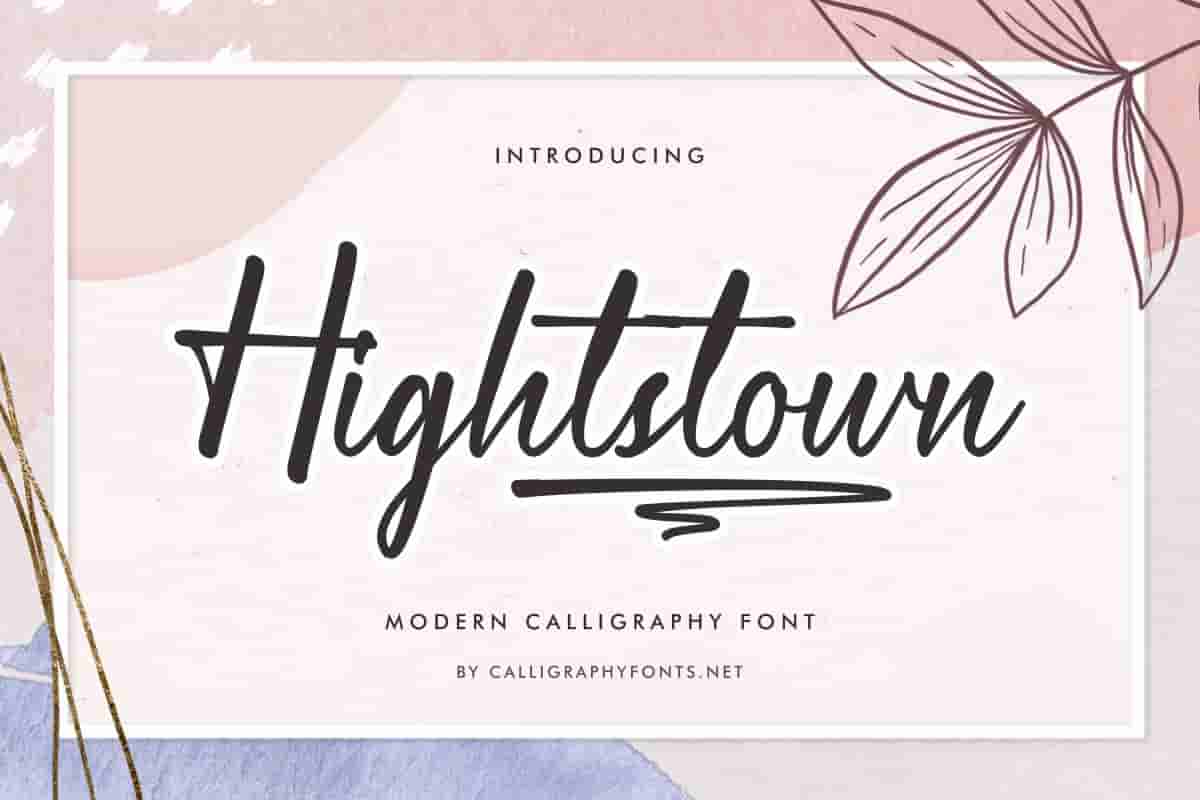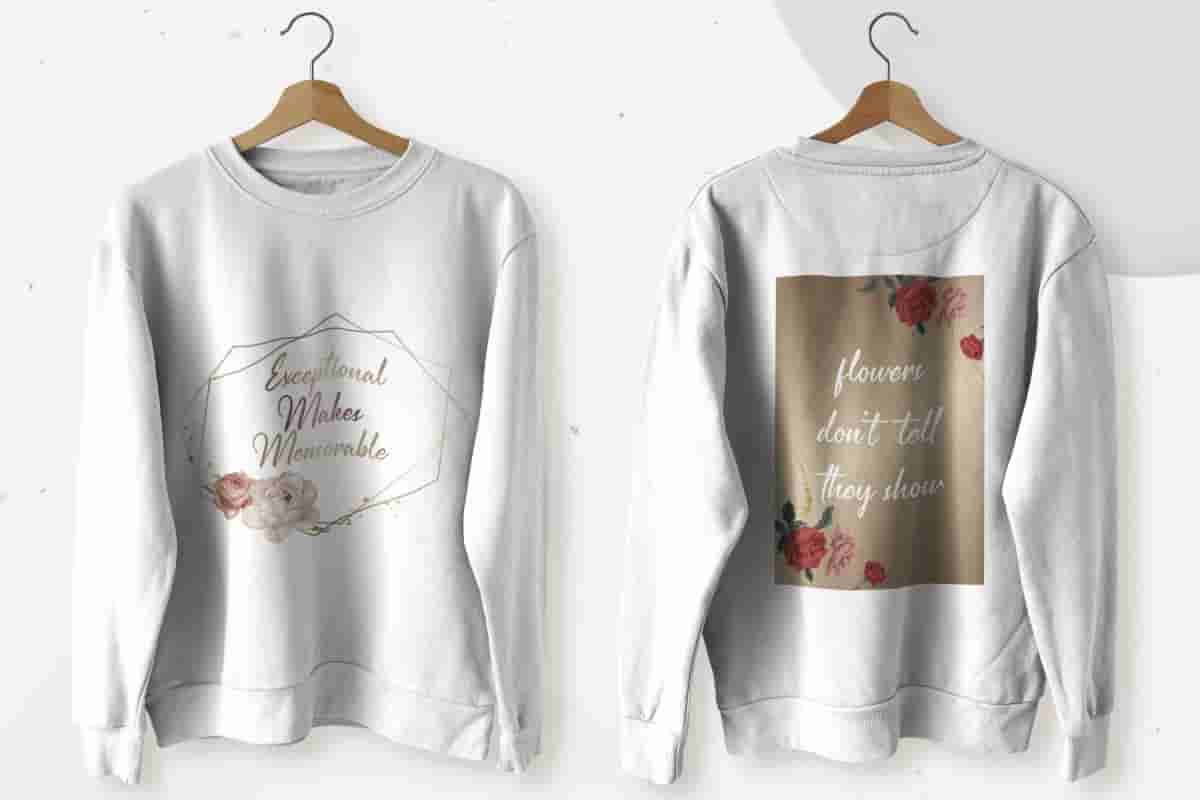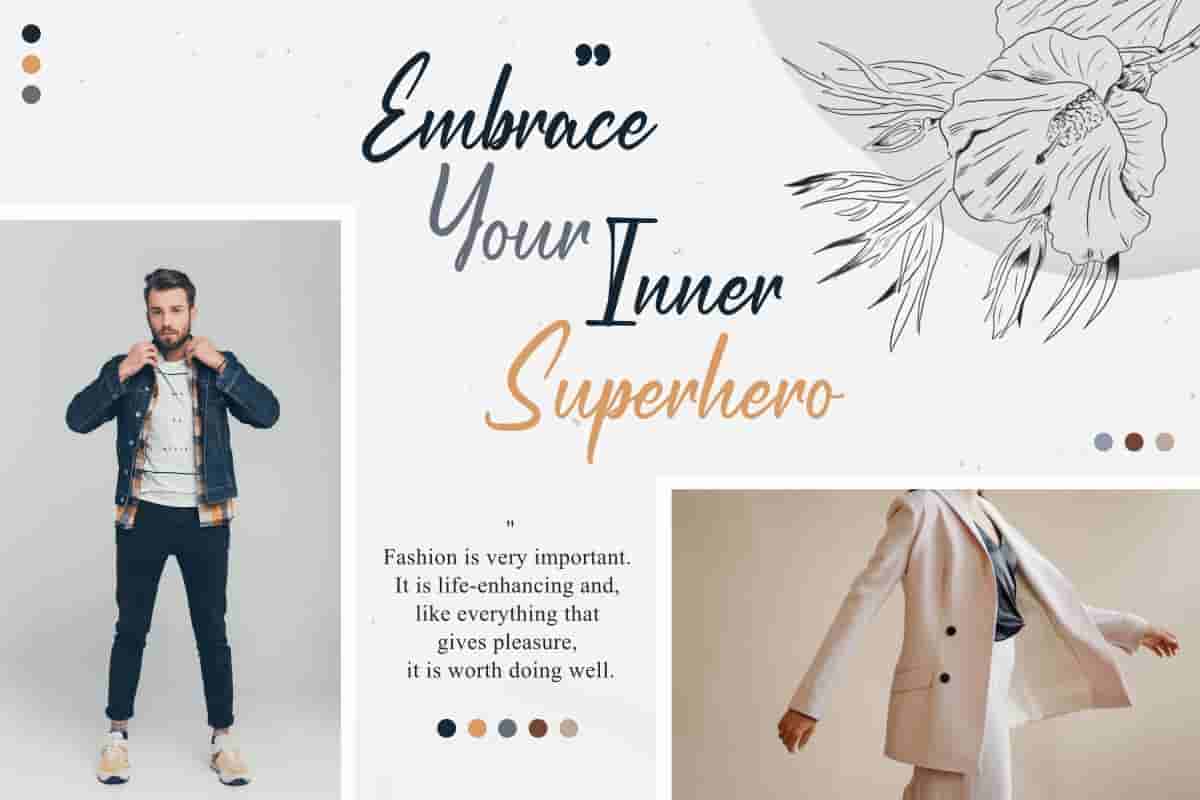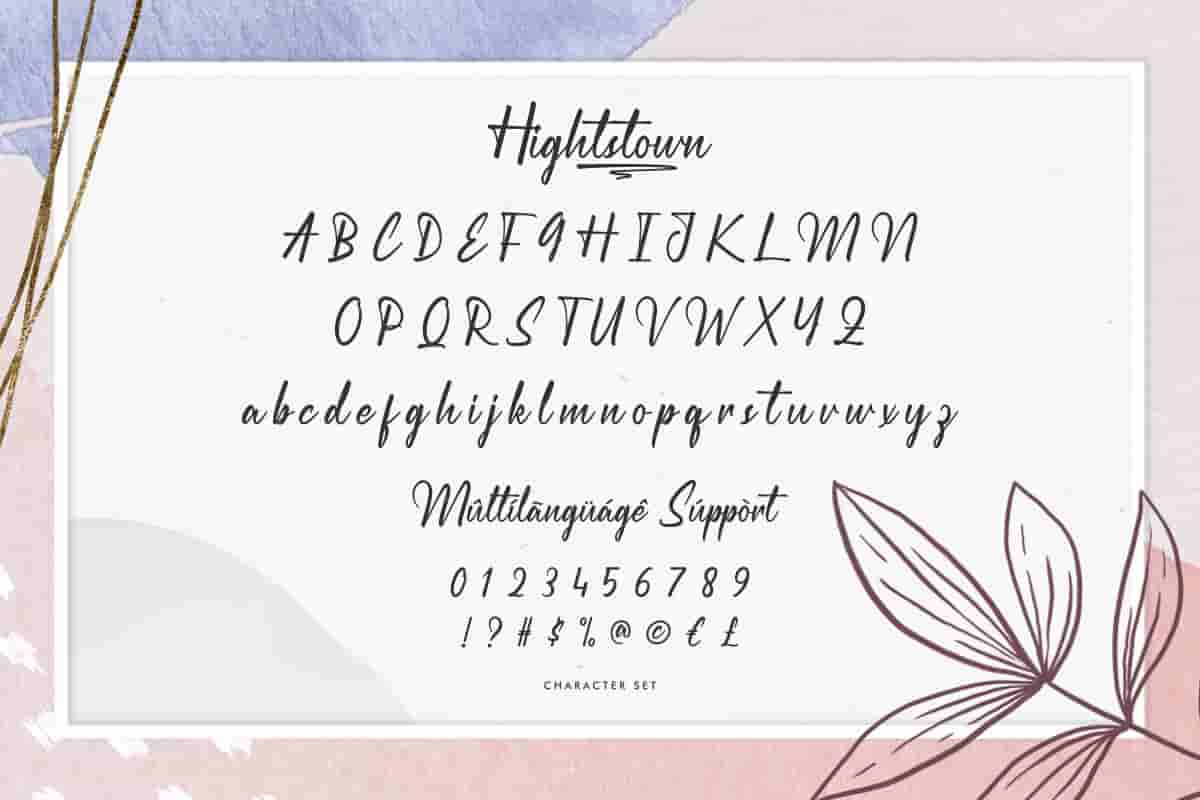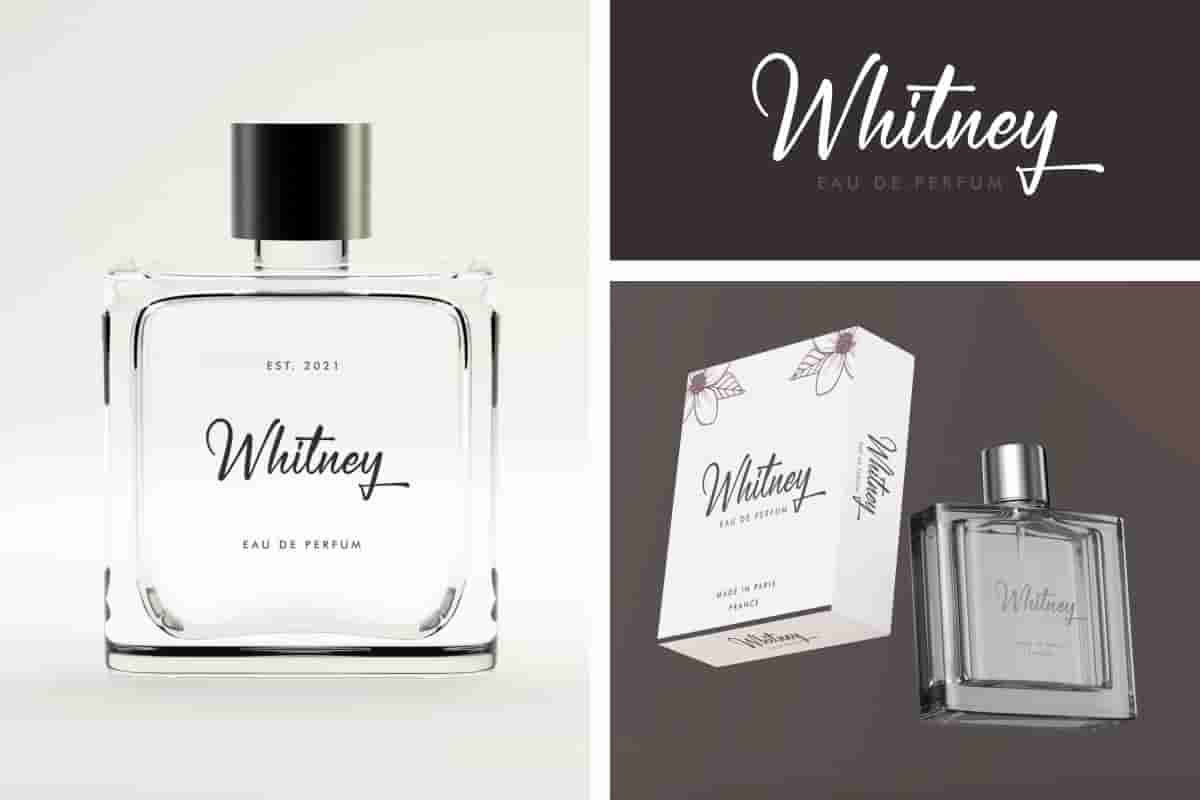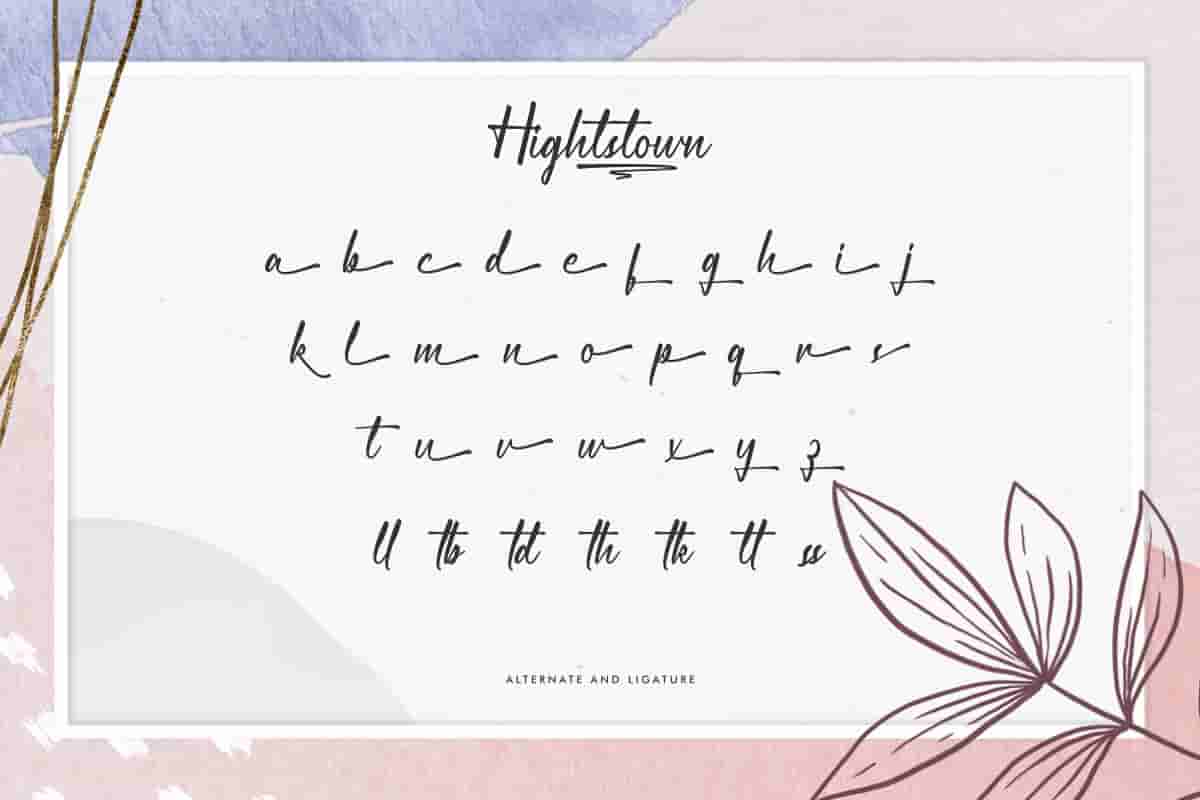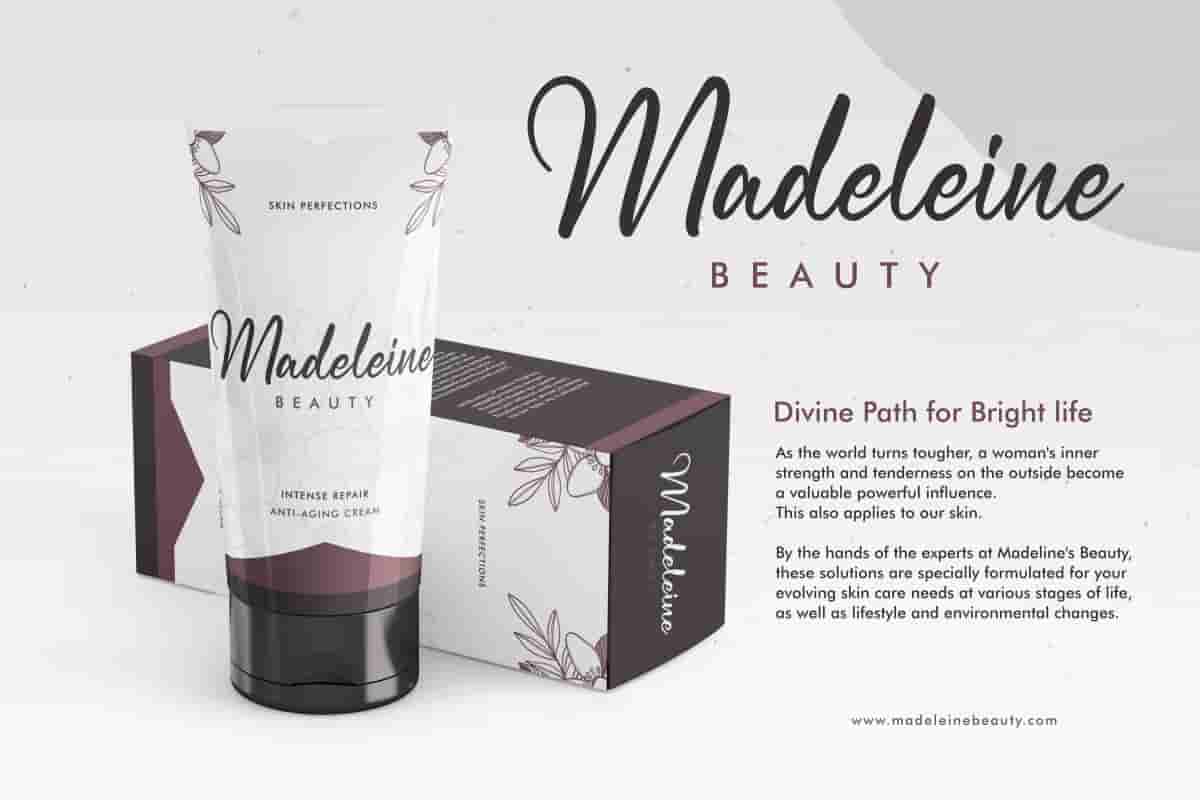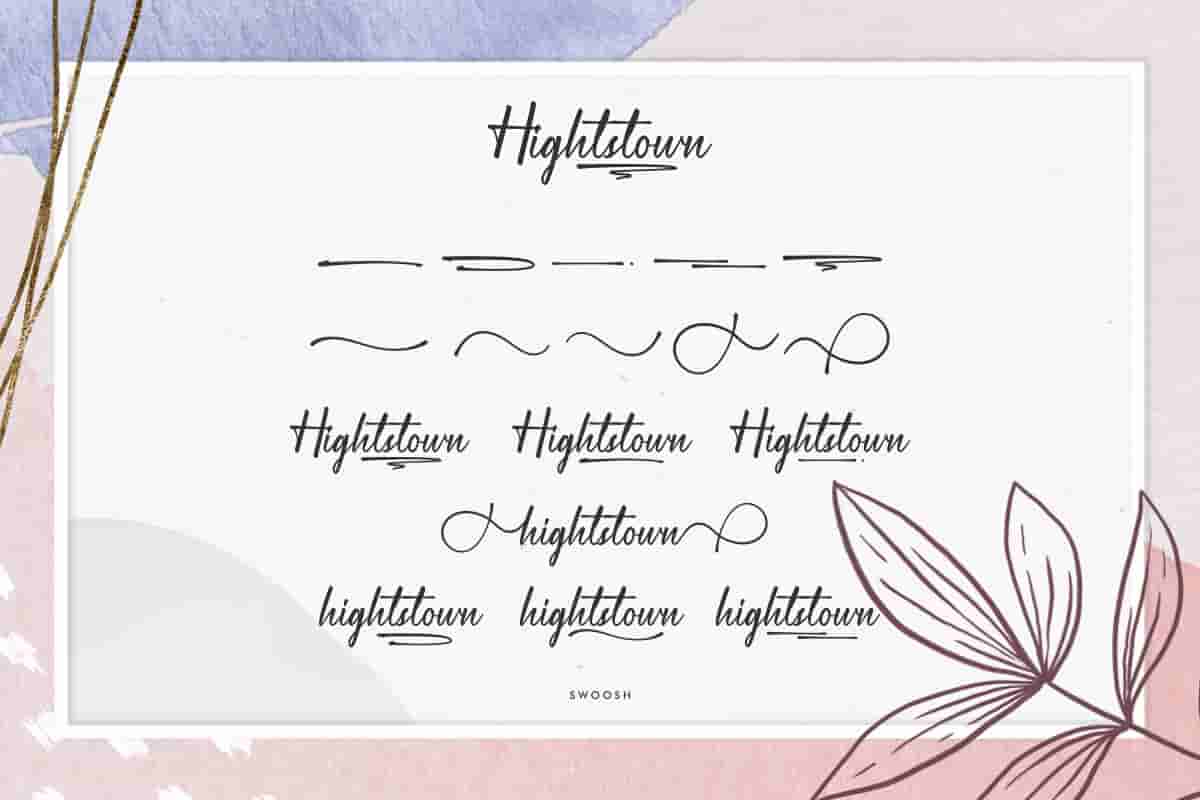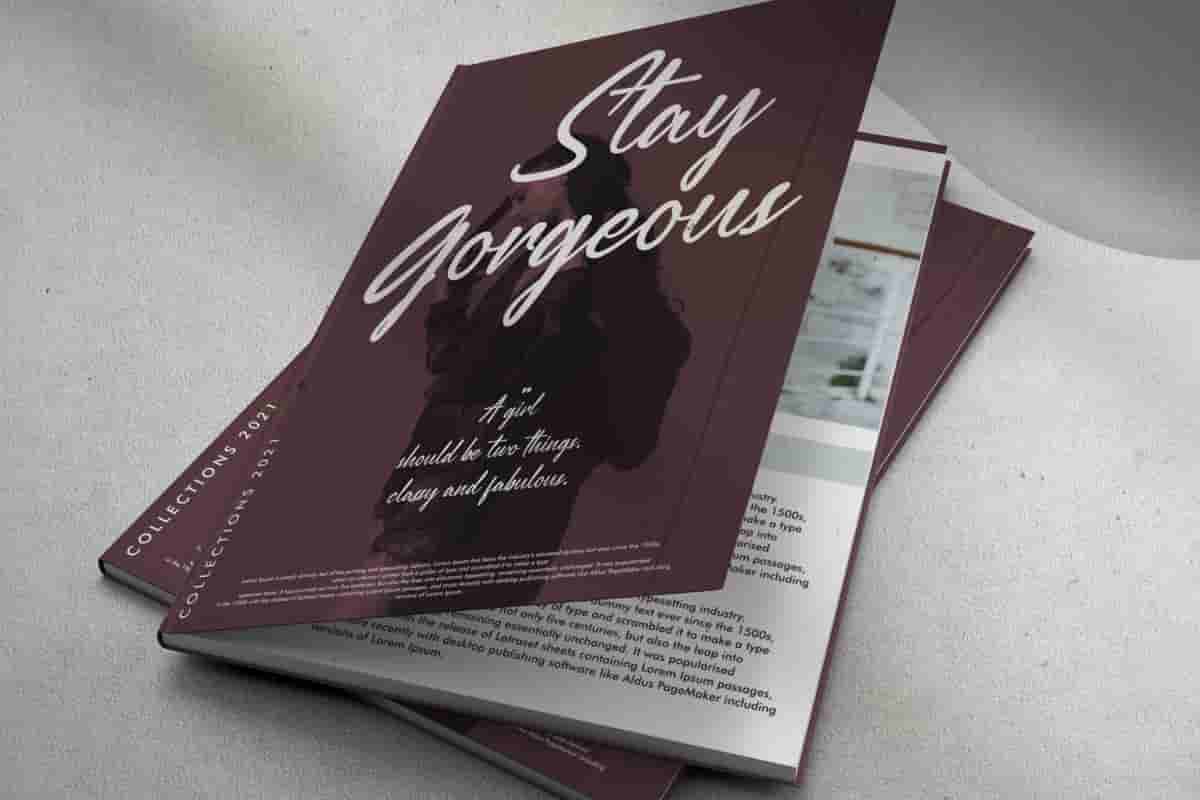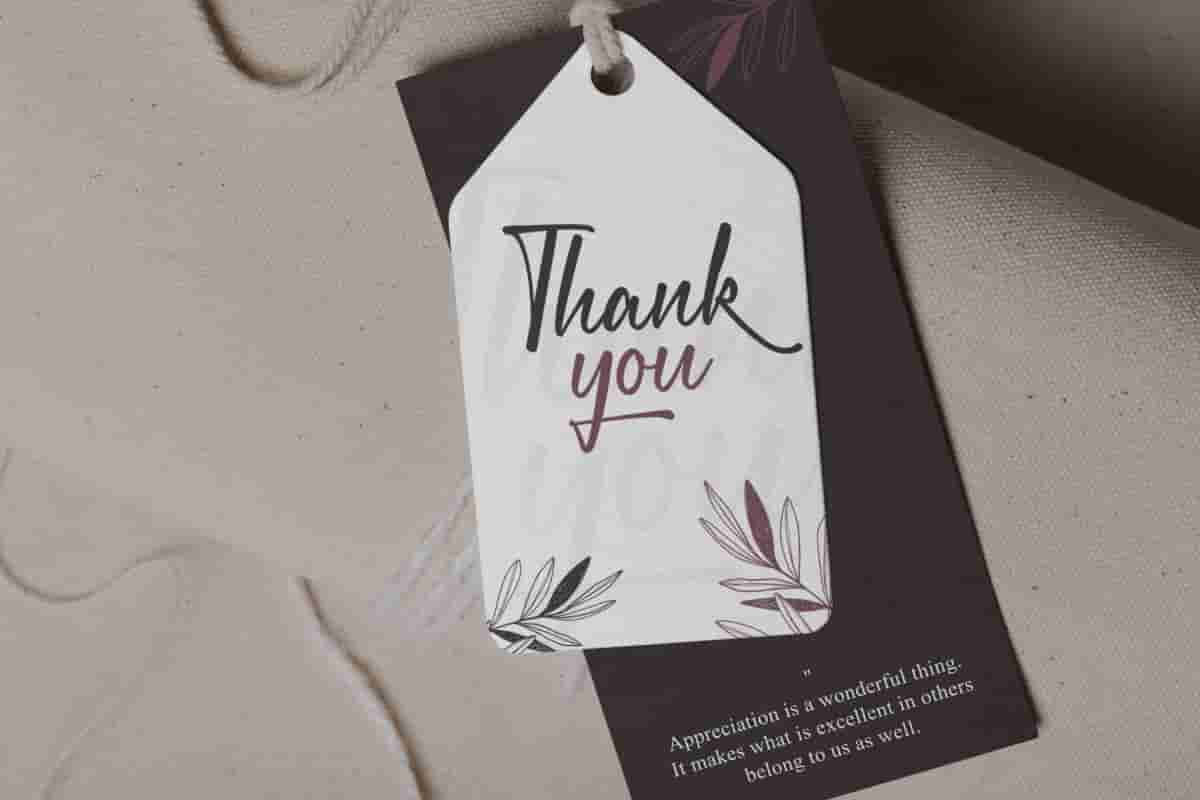
Hightstown Calligraphy Font
Hightstown Font is a calligraphy font by CalligraphyFonts.net. It has sophisticated characters that will be awesome for social media, video, logotype, invitation, flyer etc
Hightstown is a unique calligraphy font. It has unique looks that are beautiful, modern, elegant, luxury, lettering and sophisticated brush font.